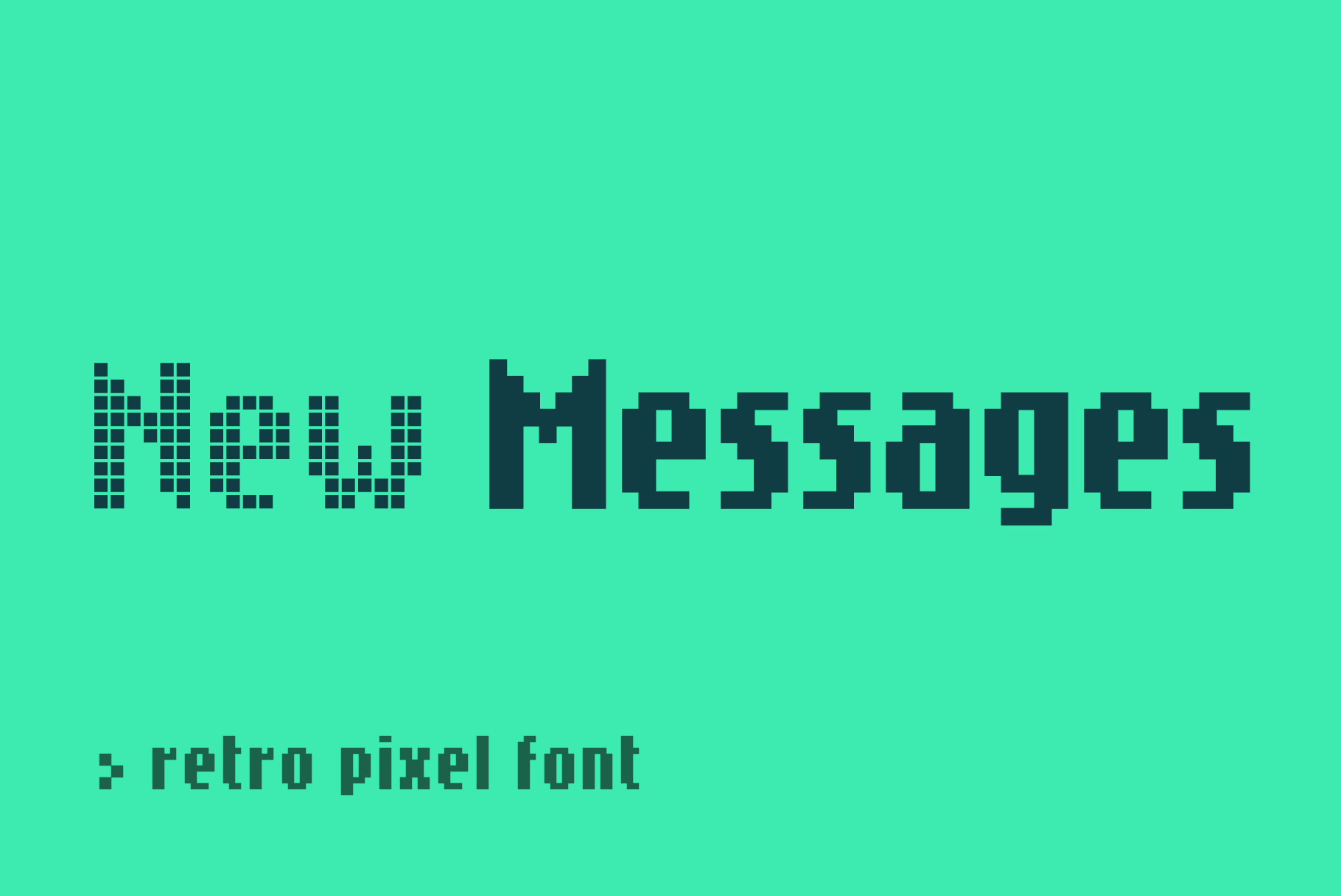
SB Message is a typeface inspired by the font used on the old Nokia cellphone displays. Message takes its cues from the Nokia font, but critically it is taller and narrower, improving its impact as a display typeface for use in headlines.
Initially only two styles were produced, Solid and Open, and were aimed at creating a phone-like headline, but later dot matrix, VDU line and rounded pixelfont versions were added, giving the designer more flexibility in using this typeface.
- Good legibility at small sizes.
- Message Solid is optimised for use as a pixel font at 10px and multiples of 10px.
- Message Open is optimised for use as a pixel font at 50px and multiples of 50px.
- Each font contains 368 glyphs.
- Supports 35 languages.